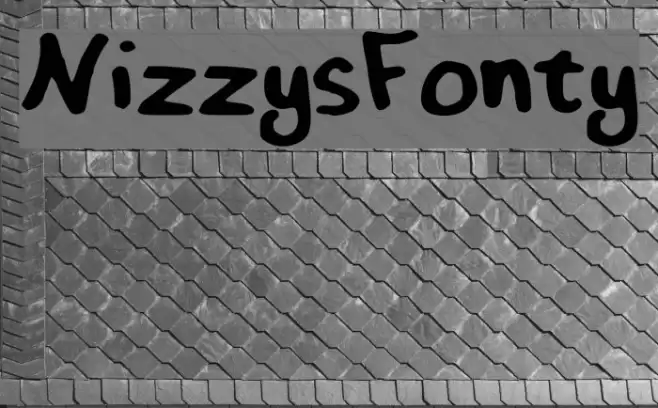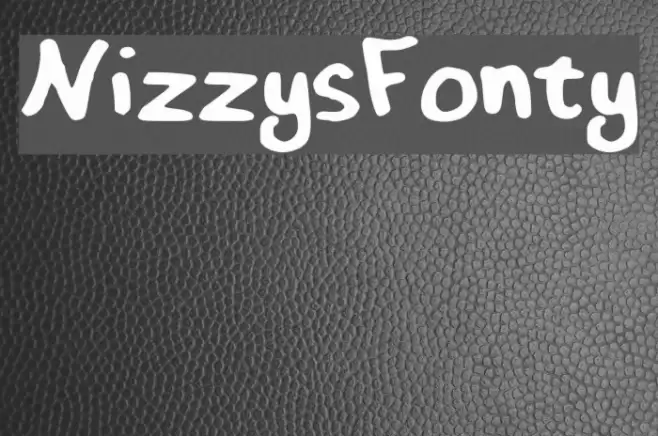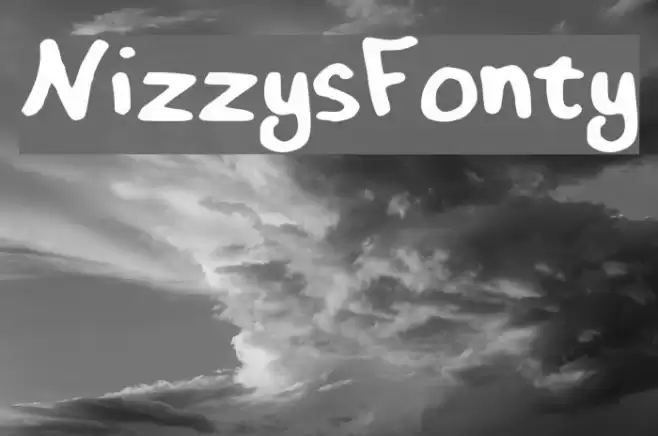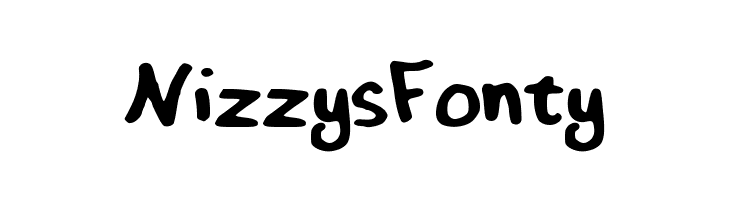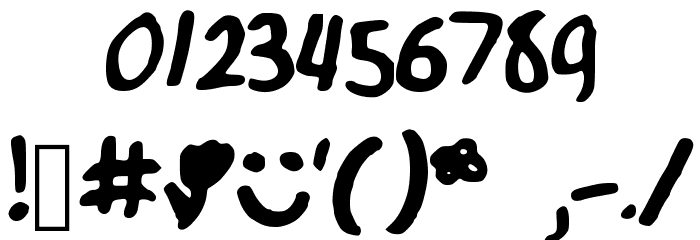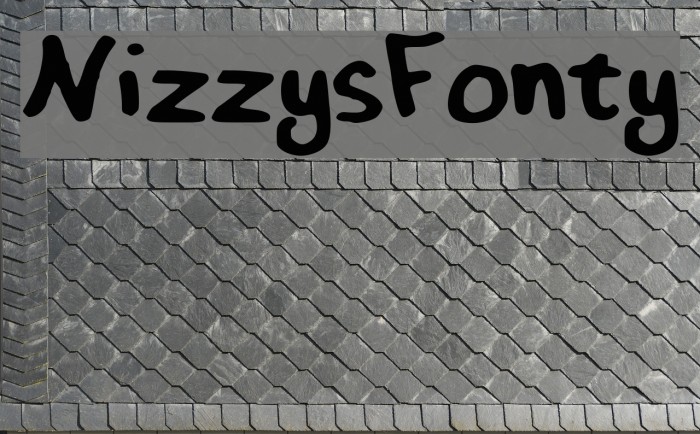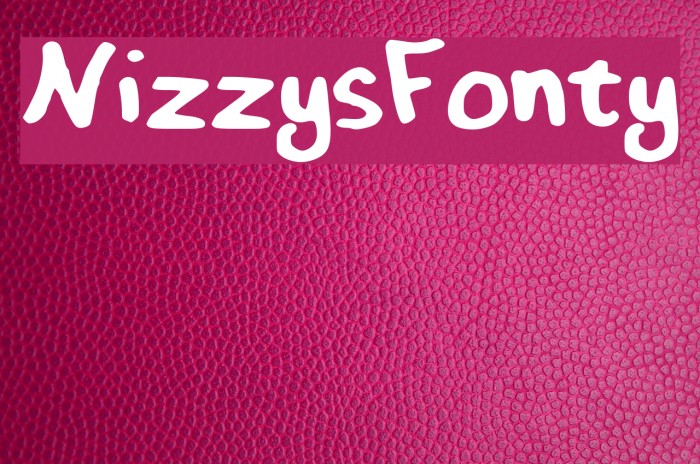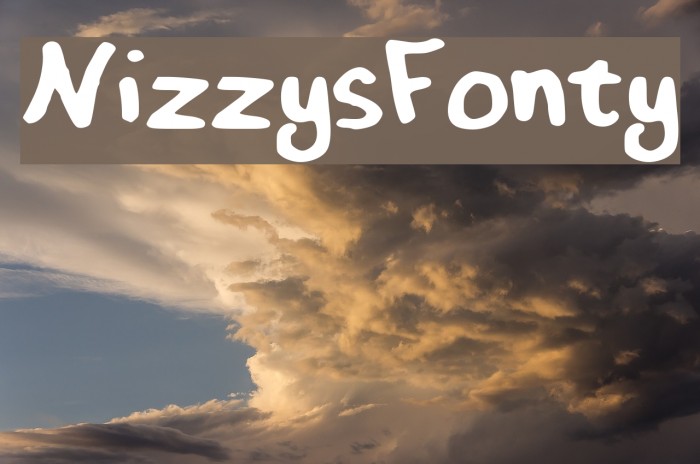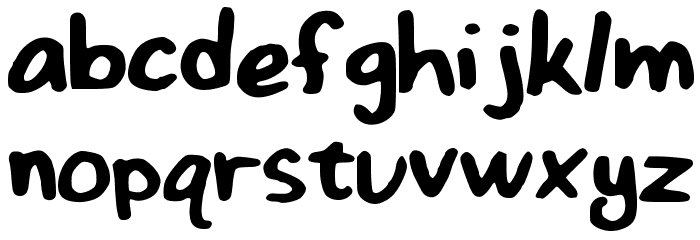
NizzysFonty Font
NizzysFonty Description
This playful and bold font features a handwritten style with thick, rounded strokes that give it a friendly and approachable appearance. The characters are slightly irregular, adding to the casual and informal feel. The uppercase and lowercase letters maintain a consistent style, with a slight slant that enhances the dynamic look. The numerals and special characters are equally bold and expressive, making them stand out. This font is ideal for projects that require a personal touch or a fun, lively vibe.
A bold, playful handwritten font with rounded strokes and a casual style from Handwritten fonts.
- Proposed Projects: Perfect for children's books, greeting cards, playful branding, and social media graphics.
- Overall Style: Playful